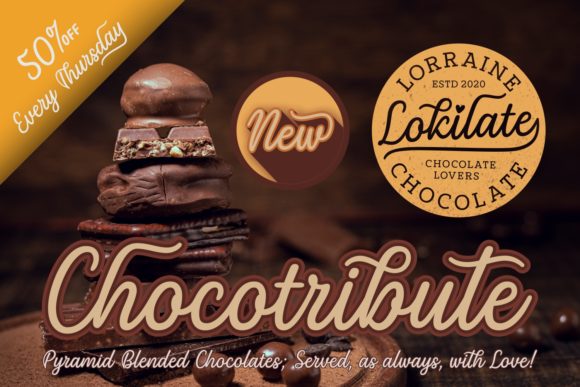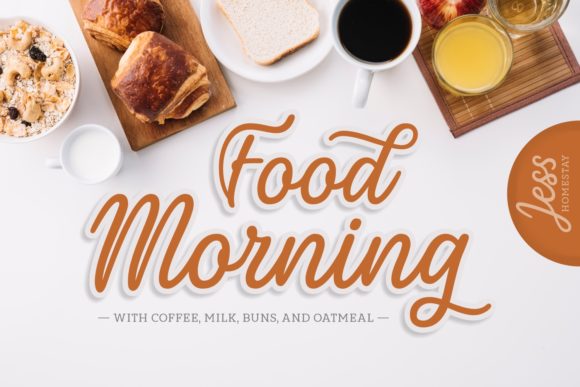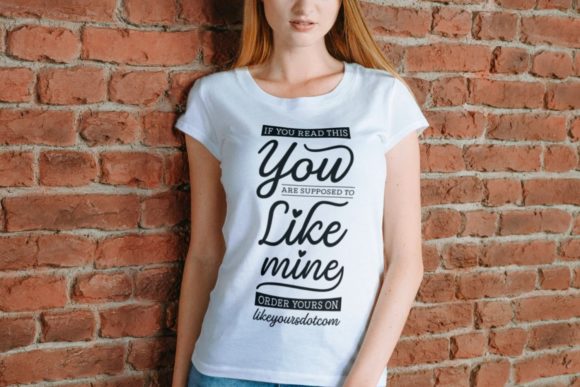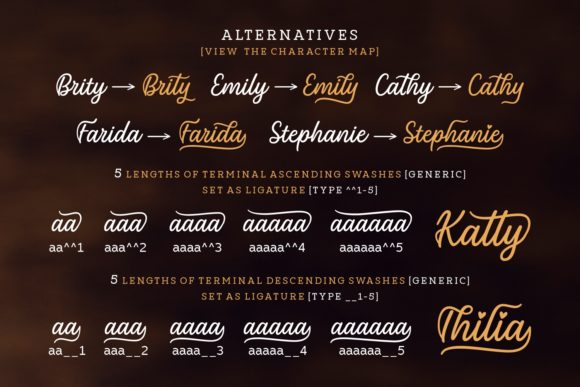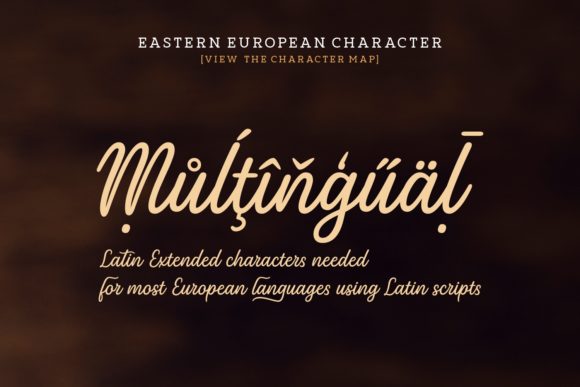
Achila Font
About Achila Font
Achila is an equally sweet and cool design idea with a bold vibe. It will turn any design idea into a true piece of art.